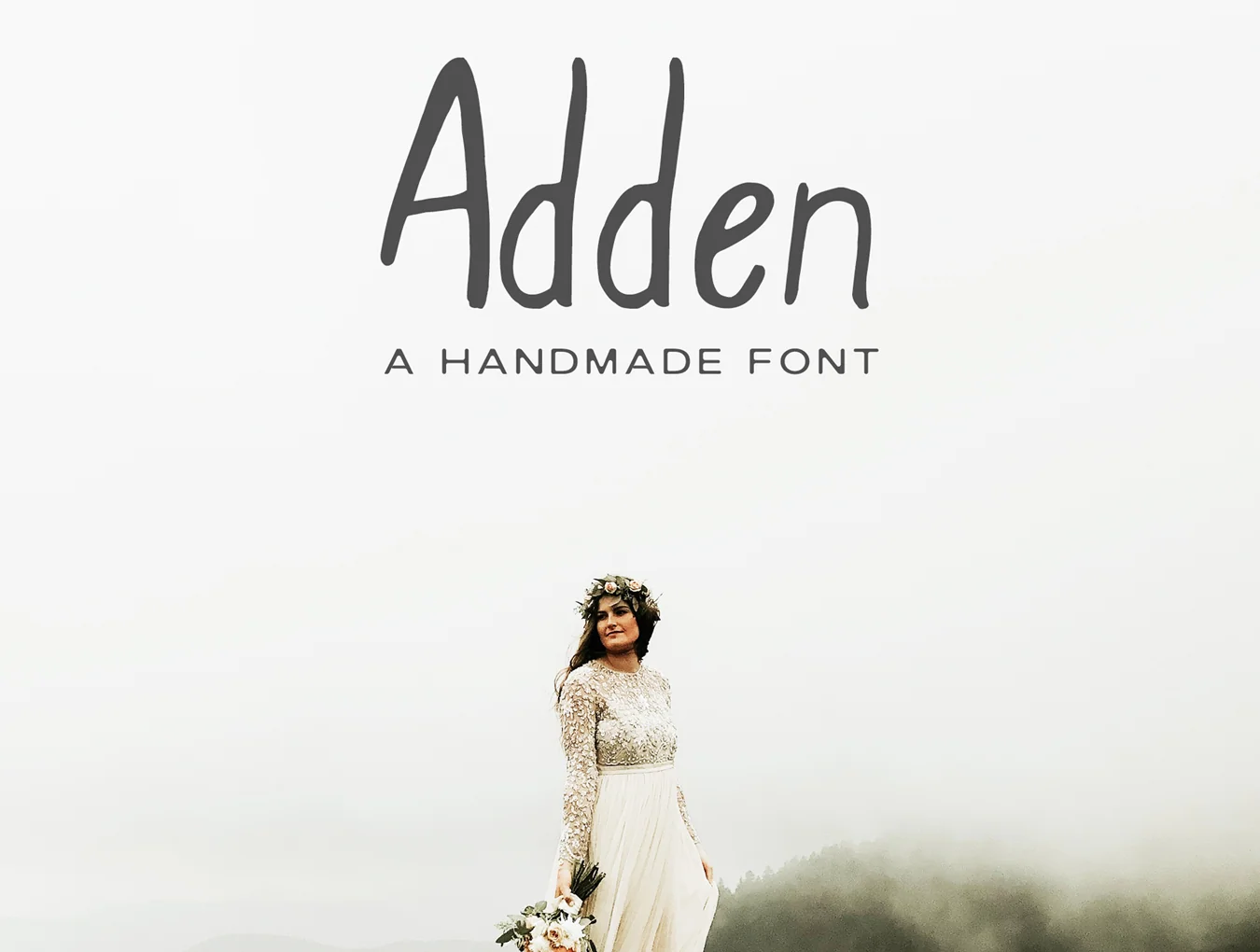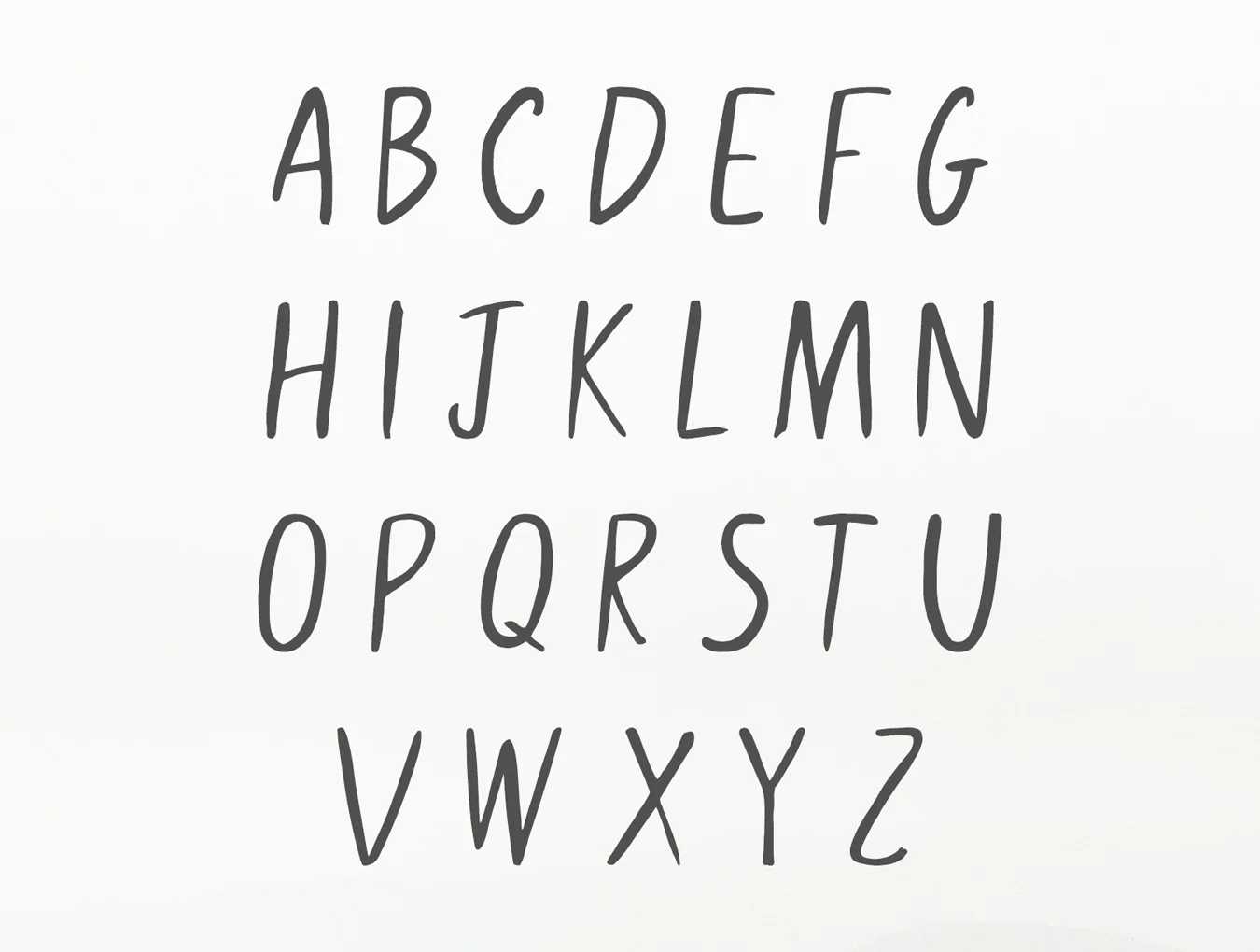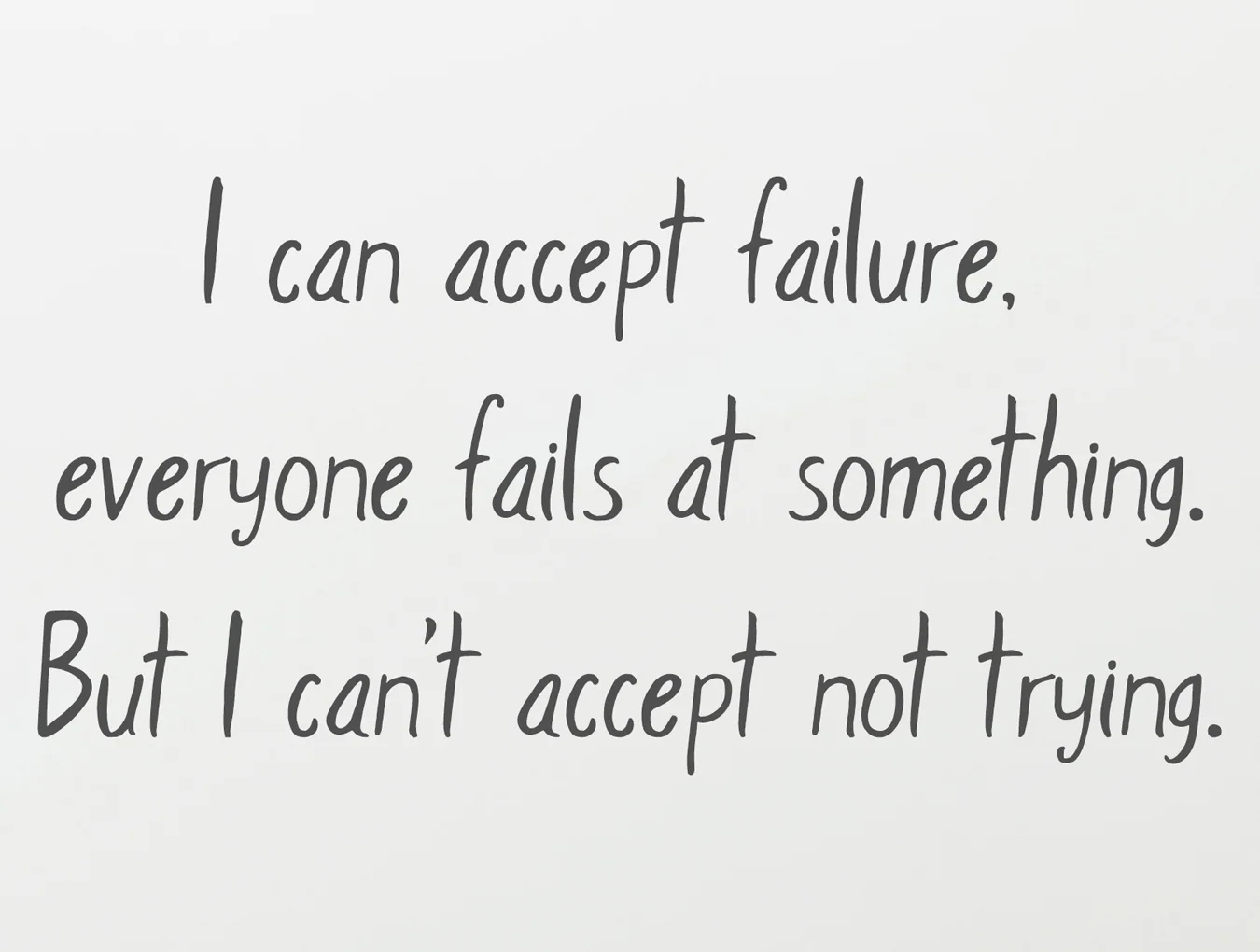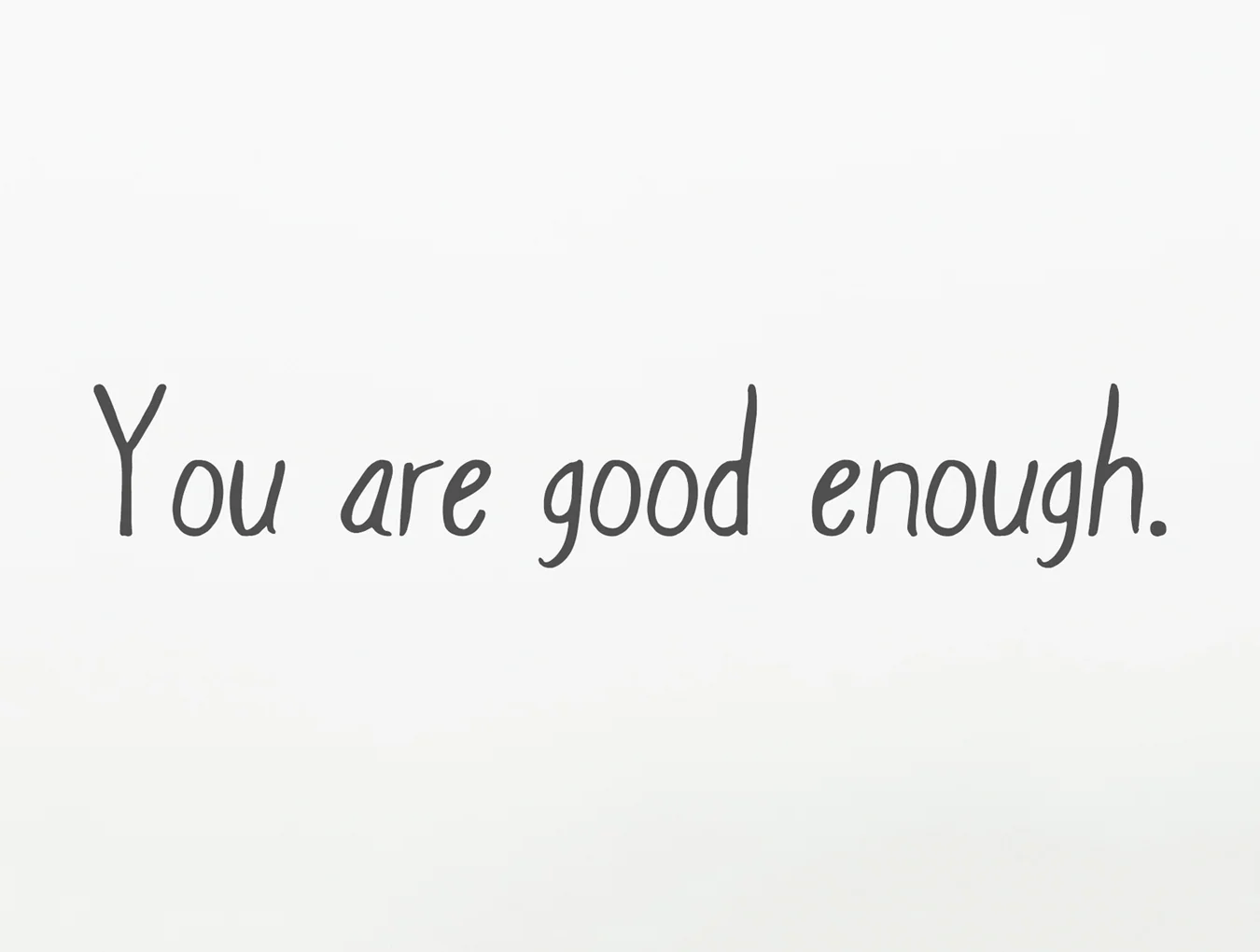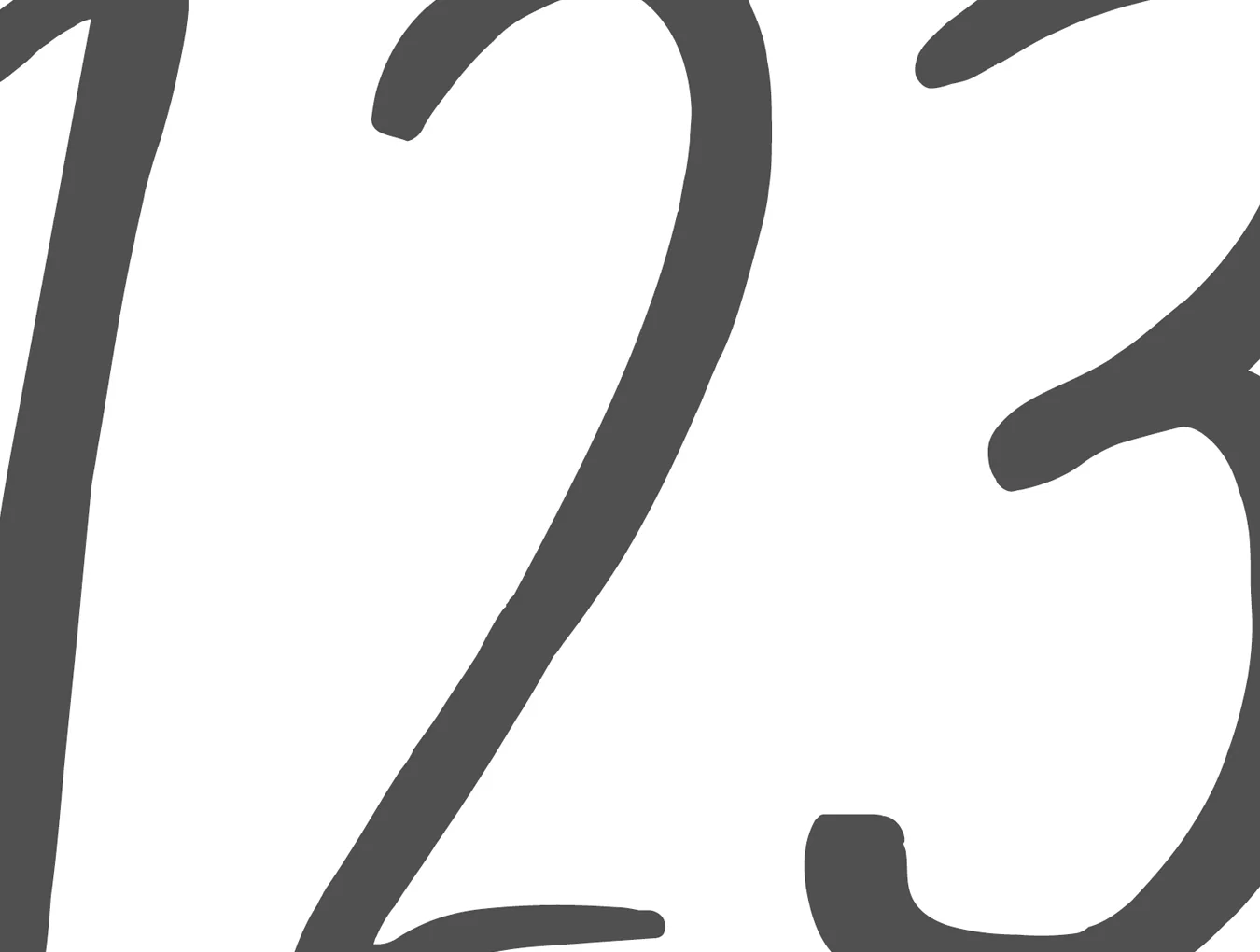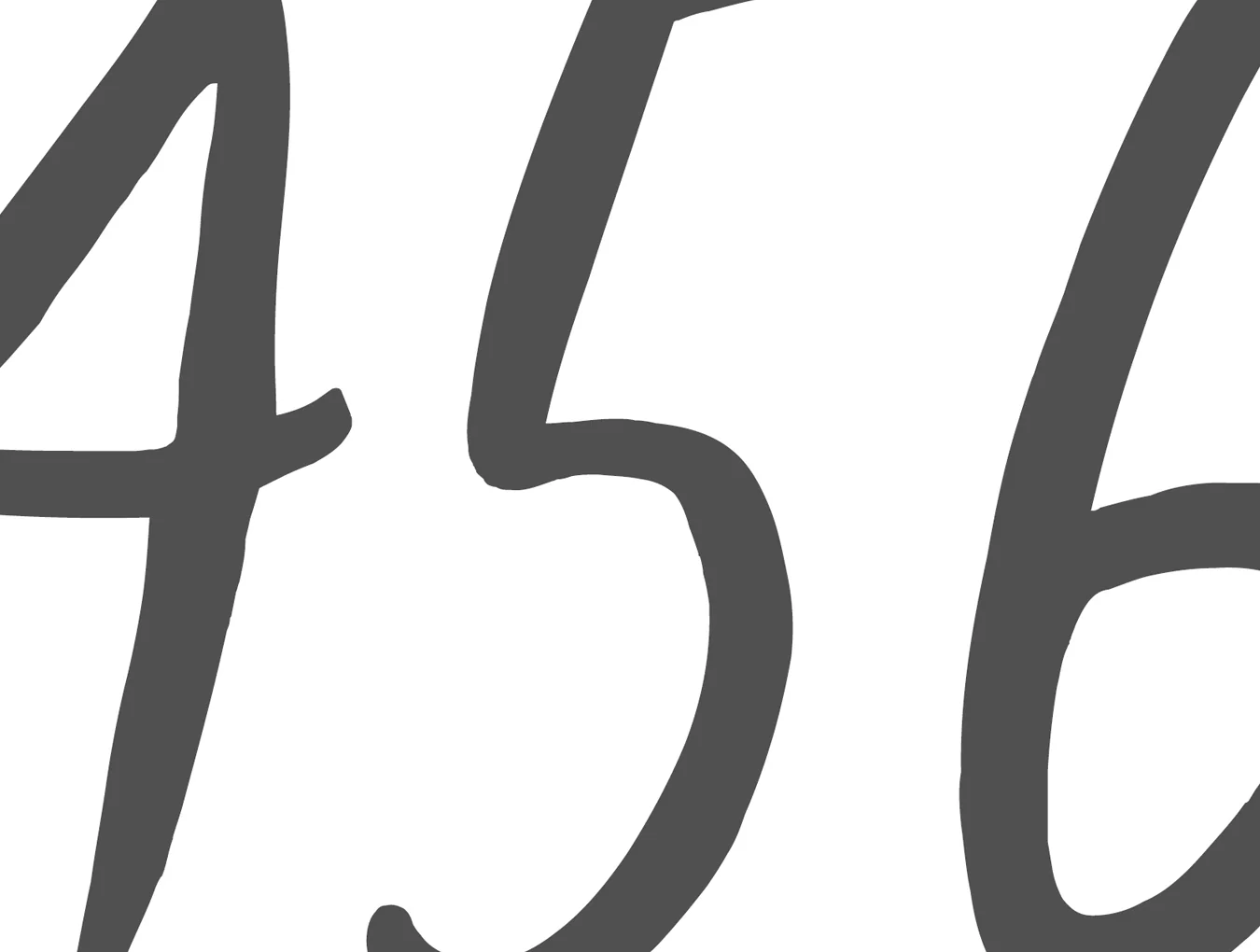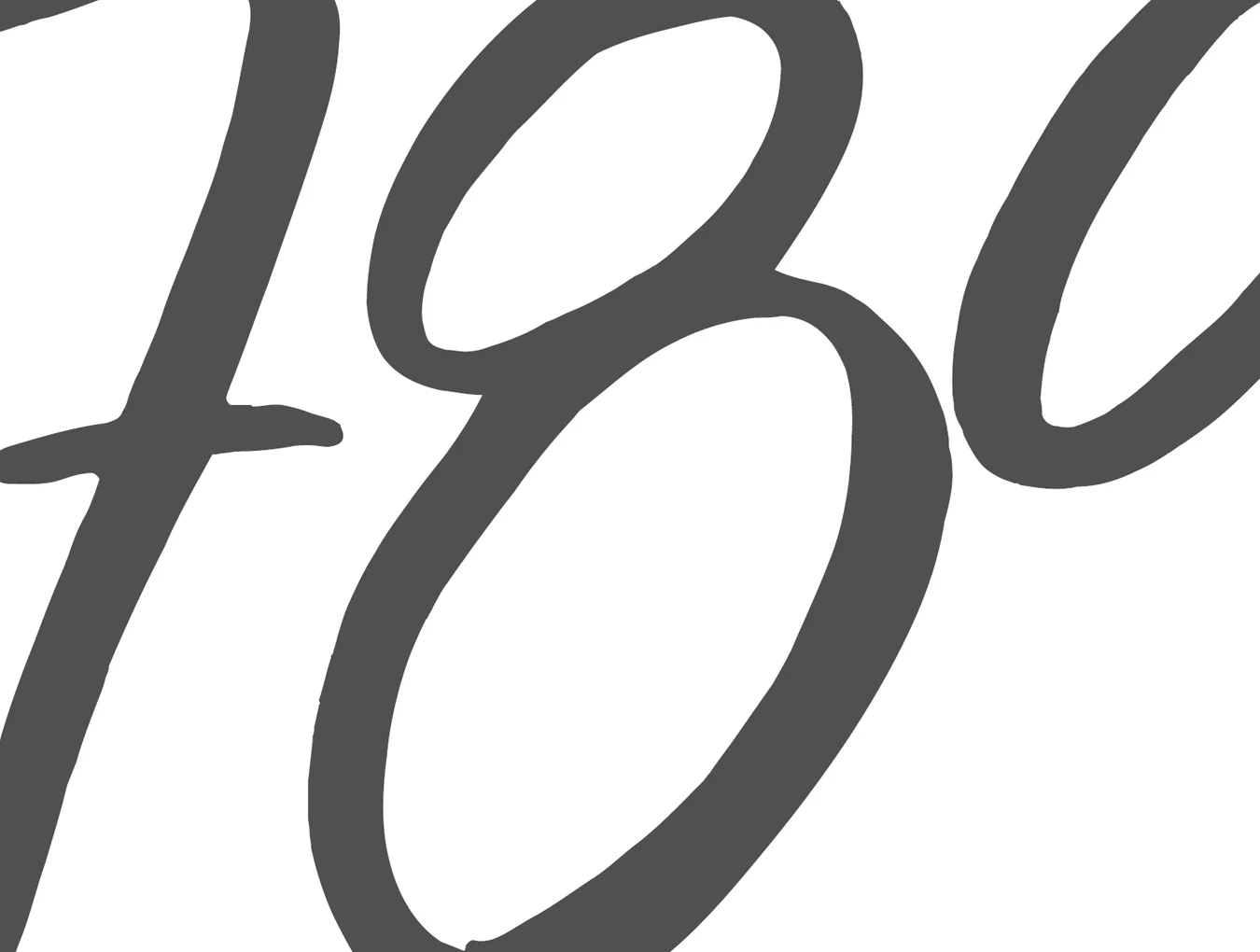
Adden Handmade Sans
Adden is a contemporary handmade sans serif typeface crafted with a gentle touch for a refined, high-quality look. Ideal for greeting cards, branding, wedding postcards, business cards, quotes, posters, small businesses, book covers, stationery, marketing designs, magazines, and more.